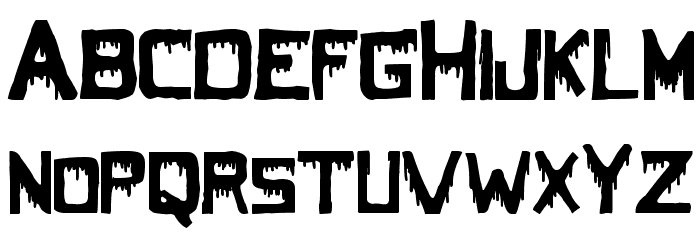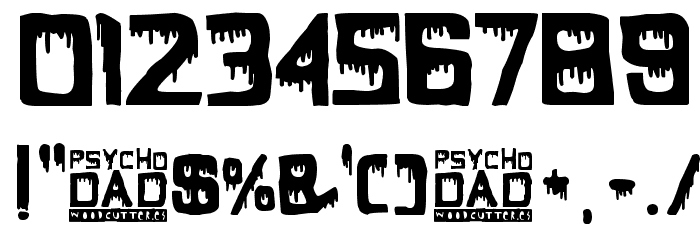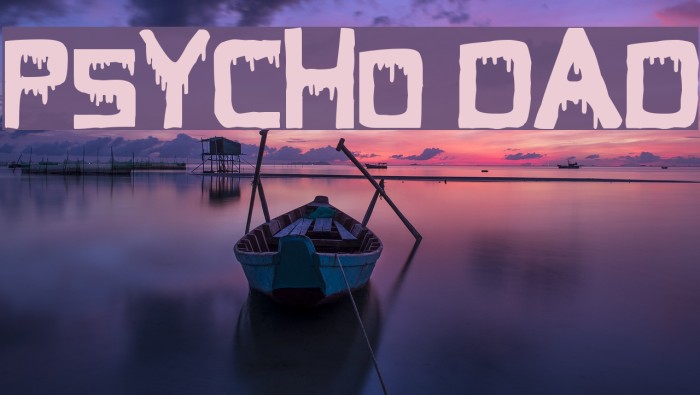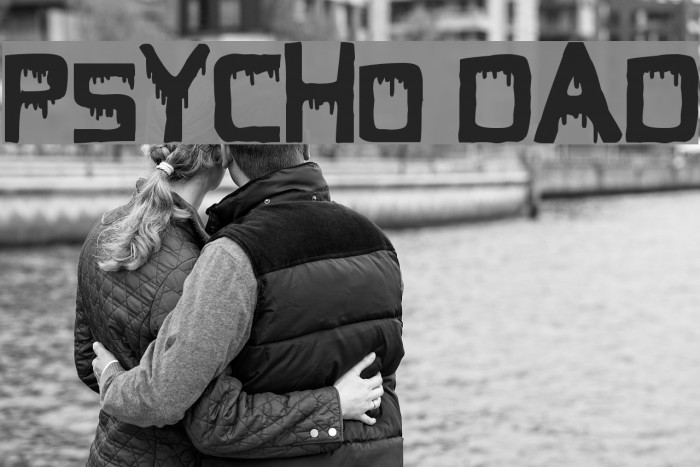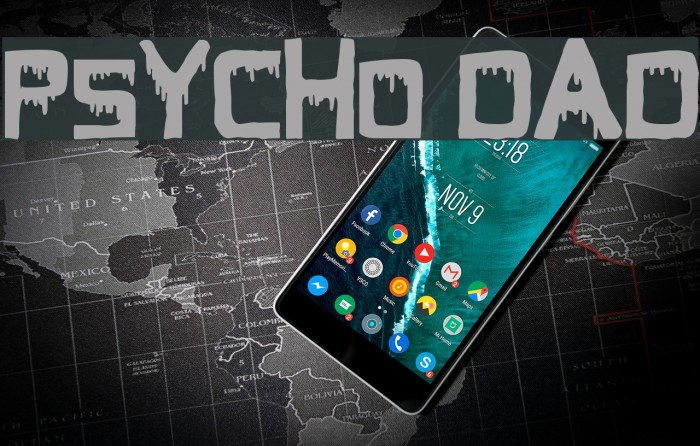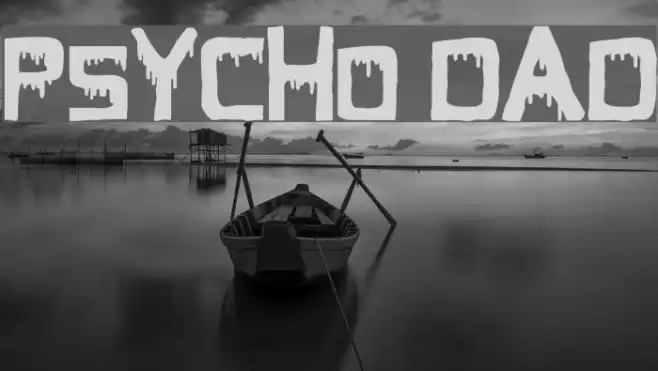
Psycho Dad Font
This font features a bold and dramatic style with a dripping effect that gives it a horror-themed appearance. The characters are uppercase and lowercase letters, numbers, and a selection of special characters. The design is reminiscent of classic horror movie posters, with a playful yet eerie vibe. The strokes are thick and uneven, adding to the unsettling aesthetic. The font is suitable for creating eye-catching titles and graphics that require a spooky or Halloween-themed look.
A bold, horror-themed font with a dripping effect.
- Font: Psycho Dad
- Proposed Projects: Ideal for Halloween posters, horror movie titles, themed party invitations, and spooky event flyers.